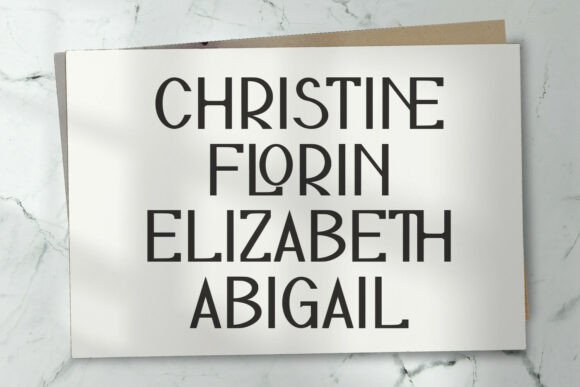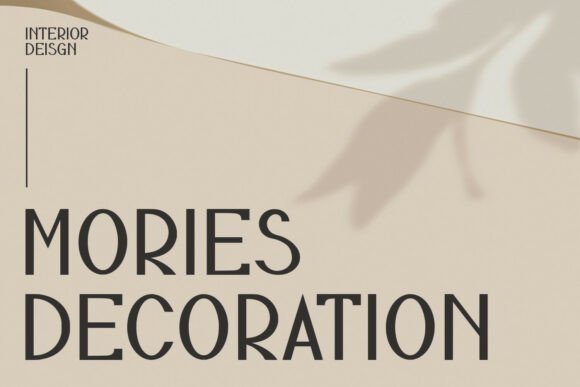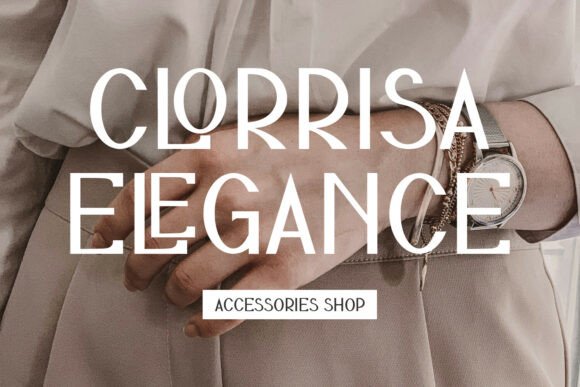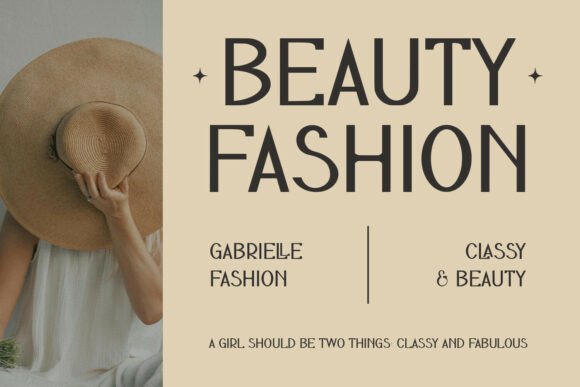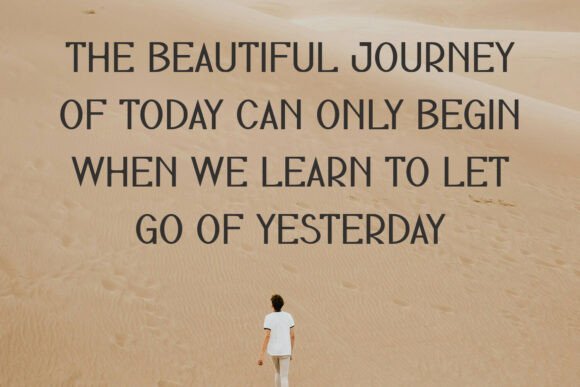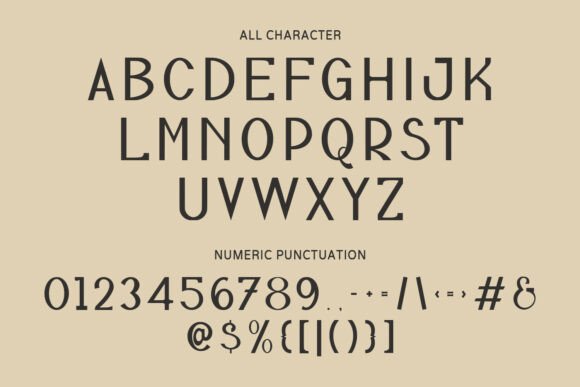
Introduction to Oquletta Font
Oquletta is a refined sans serif display font that blends modern minimalism with artistic flair.
Its clean structure is enhanced by elegant stylistic details, such as the distinctive “Q” tail and uniquely cut terminals, giving it a luxurious yet approachable personality Perfect for branding, editorial designs, fashion headlines, and premium packaging, Oquletta adds a sophisticated touch to any project.